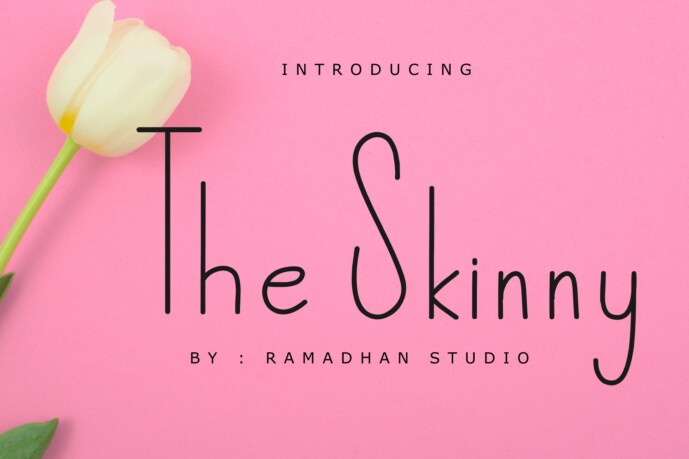
The Skinny Font
Designer: alanstudio99
THE SKINNY is a clean and minimal handwritten font with a modern twist. Its slim lines and simple strokes make it perfect for notes, quotes, logos, journals, and any design that calls for a casual yet stylish look.